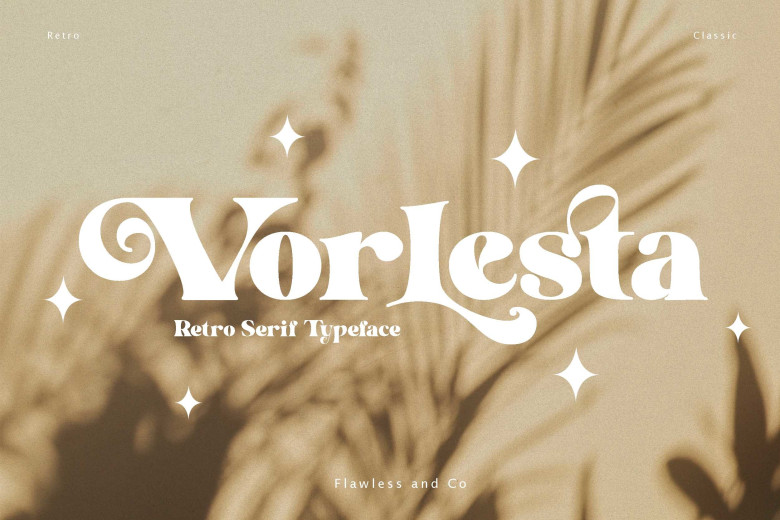
Vorlesta Font
Vorlesta is an exciting retro font with an energetic and eye-catching appearance, ideal for boho-themed designs such as posters, branding materials, business cards, t-shirts photographs logos quotes etc. Check out other characters for alternative looks!
Vorlesta Serif Font